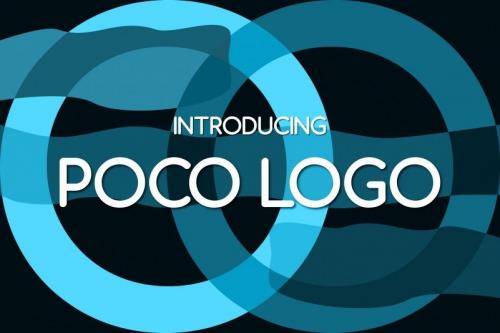
Poco Logo is a low contrast, classic sans serif font featuring well-balanced proportions. Its uppercase letters are strongly influenced by Roman Inscriptional Capital letters, while its lowercase letters and their proportions are influenced by old style serif typography.
Poco Loco will give your typographic work a unique feel, which makes it a reliable font for branding projects, poster displays, websites, packaging, and much more!